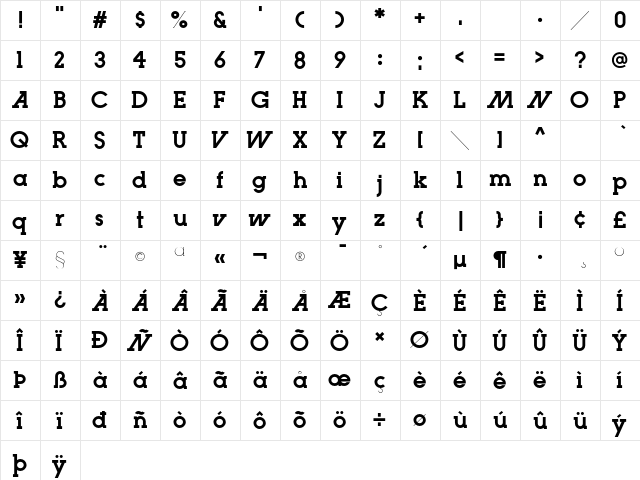
Inlove Bold
| Foundry | Designed by Ariel Di Lisio and digitized by Alejandro Paul |
| Designer | Ariel Dilisio |
Design Context for Inlove Typeface
Inlove is a composed and adaptable typeface that performs quietly and consistently across a wide range of design contexts. The heavy weight commands attention and anchors typographic hierarchies.